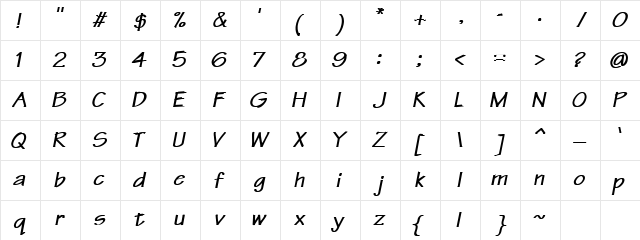
Complete Handprint Bold-Italics glyph index. Displaying only characters natively supported by Handprint Bold-Italics font.
Handprint flows with the natural rhythm of handwritten lettering, making it ideal for designs that call for warmth and personal expression. Its bold stroke weight gives it real presence on the page.
Font Pairing: Combine Handprint with a simple geometric sans for maximum contrast - the tension between flowing curves and clean structure is a classic typographic pairing.
Pro Tip: Use Handprint for short runs of text - names, titles, or taglines. Extended body copy in script faces tires the eye quickly.